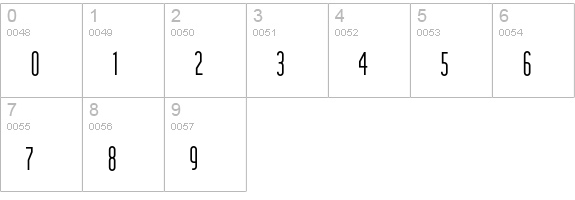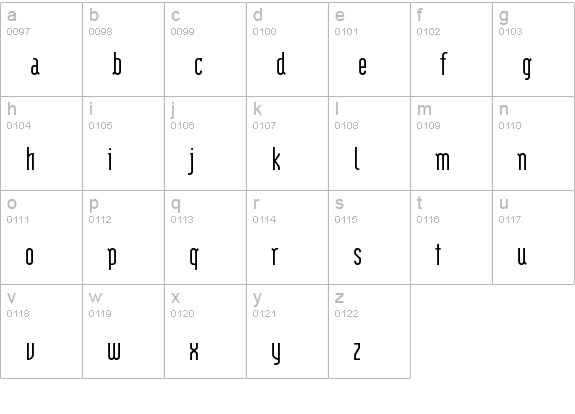
Modular font is a versatile and modern typeface that captures the essence of minimalism and precision. Its clean lines and balanced proportions make it perfect for a wide range of design projects, from branding to editorial layouts. The modular design approach allows for easy customization and flexibility, making it a go-to choice for designers looking to create contemporary and impactful designs. The best part? Modular font is completely free to download at FontsMarket.com, where you can access this stylish typeface with just a few clicks. Whether you're a seasoned designer or just starting out, Modular font offers a seamless and professional solution for your typography needs. Get your hands on this sleek and sophisticated font today and elevate your design projects to the next level.